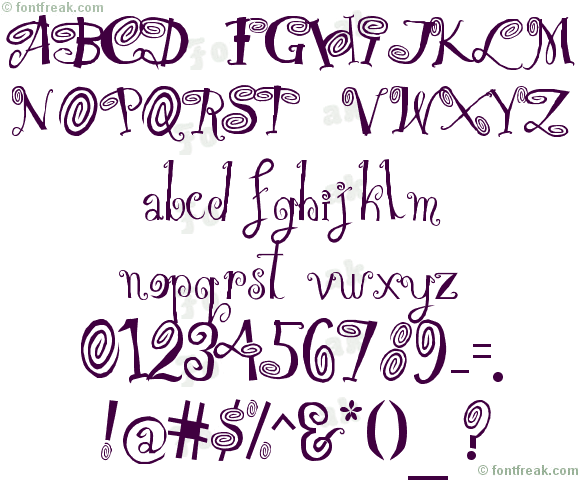
HipnOtik
About HipnOtik
Introducing the HipnOtik font by Randy Ford, a captivating display typeface that embodies a playful and whimsical aesthetic. Released in 1997, this shareware font is an outstanding choice for projects that call for a unique and eye-catching touch. The HipnOtik font features a decorative style characterized by its irregular, spiral forms that create an almost hypnotic effect. Its distinctive stroke weight varies, offering a dynamic contrast that draws attention without overwhelming the viewer. The spacing between letters is thoughtfully designed to maintain readability while enhancing the font's artistic flair.
This font is particularly well-suited for a variety of creative applications. It shines in wedding invitations, where its whimsical nature can add a sense of fun and joy to the occasion. Movie posters also benefit from the HipnOtik font's striking visual appeal, making it ideal for indie films or comedies that aim to capture an audience's attention. Additionally, restaurant menus can utilize this font to convey a quirky, inviting atmosphere, perfect for casual dining establishments. Content creators looking to add a unique touch to their graphics will find this font to be a valuable asset, particularly in social media posts or promotional materials.
The target audience for the HipnOtik font includes graphic designers, small business owners, and content creators who seek to stand out in a crowded market. Its unique design allows for creative expression while maintaining practicality in various print and digital formats. In conclusion, the HipnOtik font is a standout choice for anyone looking to infuse their projects with personality and flair. For those interested, a HipnOtik font free download is available, allowing you to explore its potential in your own creative ventures.